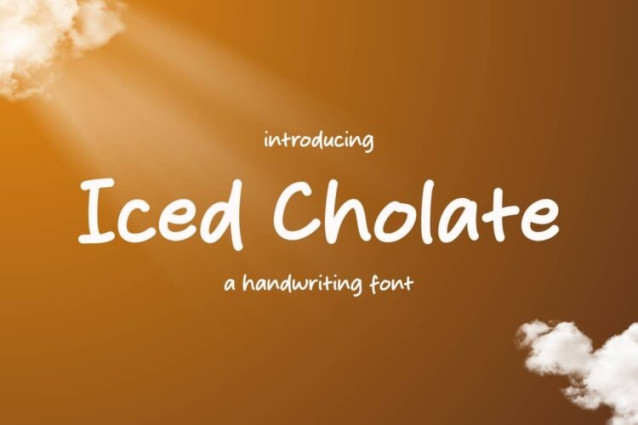
Iced Cholate Font is a simple and friendly handwritten font. Its natural and unique style makes it incredibly fitting to a large pool of designs. The only limit is your imagination!
Iced Cholate Font